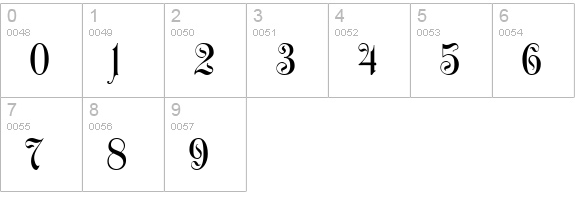
Rothenburg Decorative Normal Font Details
Rothenburg Decorative Normal is the standard, neutral variant in the Rothenburg typeface family \xE2\x80\x94 well suited to general body text, paragraphs, and standard typographic work.
Rothenburg Decorative Normal font is a stunning display typeface that exudes elegance and sophistication. With its intricate details and ornate design, this font is perfect for adding a touch of luxury to your projects. The elaborate swirls and flourishes of Rothenburg Decorative Normal make it ideal for creating eye-catching headlines, invitations, and branding materials. What sets Rothenburg Decorative Normal apart is not only its exquisite design but also the fact that it is available for free download at FontsMarket.com. This means that you can easily access this beautiful font and use it in your personal and commercial projects without any cost. Whether you're working on a wedding invitation, a packaging design, or a logo, Rothenburg Decorative Normal is sure to make a statement and elevate your designs to the next level. Download it today and add a touch of sophistication to your creations!